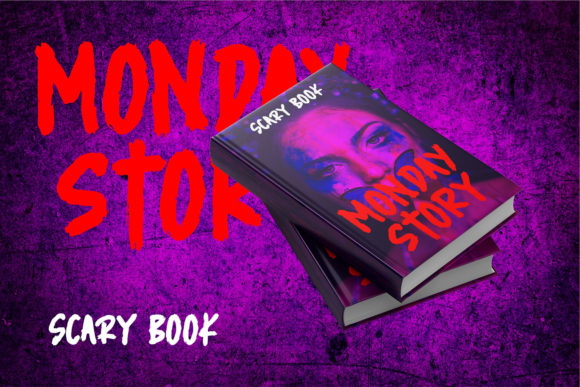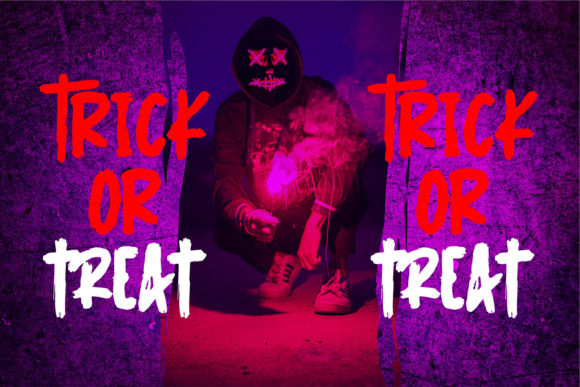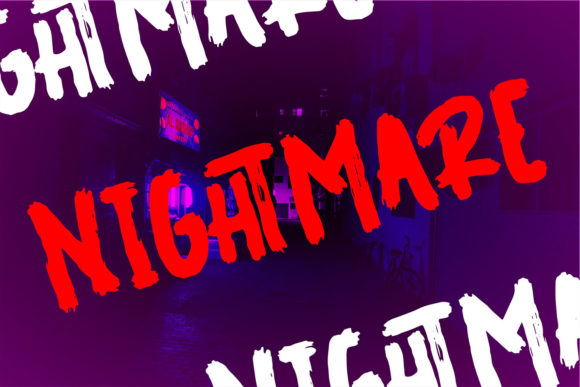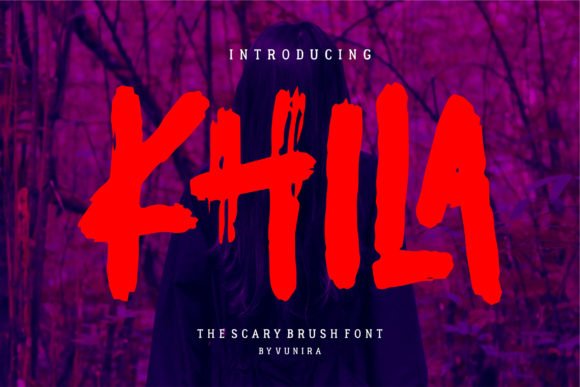
Introduction to Khila Font
Khila is a unique display font with a spooky horror theme.
Use this font for any crafting project that requires a personalized look .
Why Choose Khila Font?
Khila Font offers exceptional quality and versatility, making it a valuable addition to your design toolkit. Whether you’re creating for personal projects or commercial use, Khila Font delivers professional results.